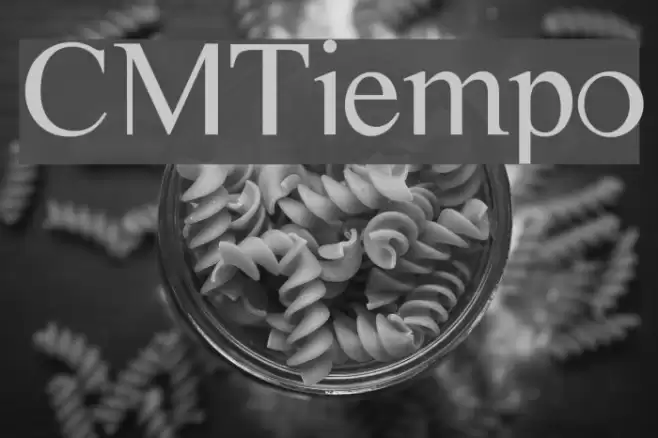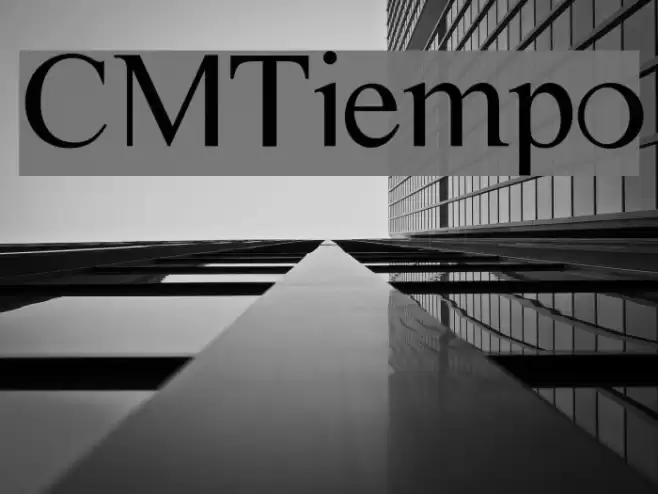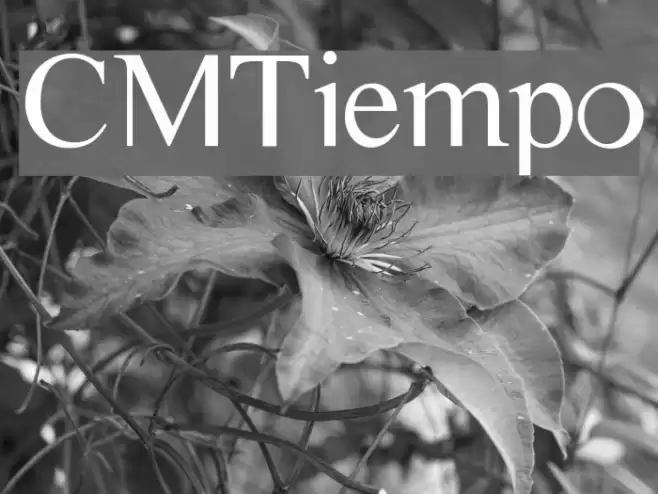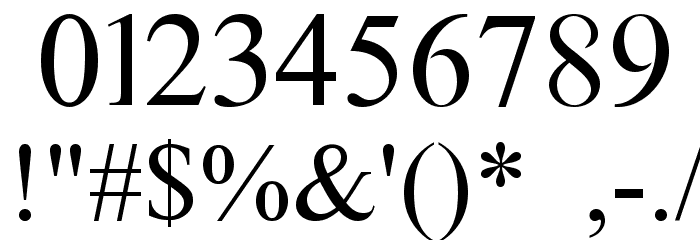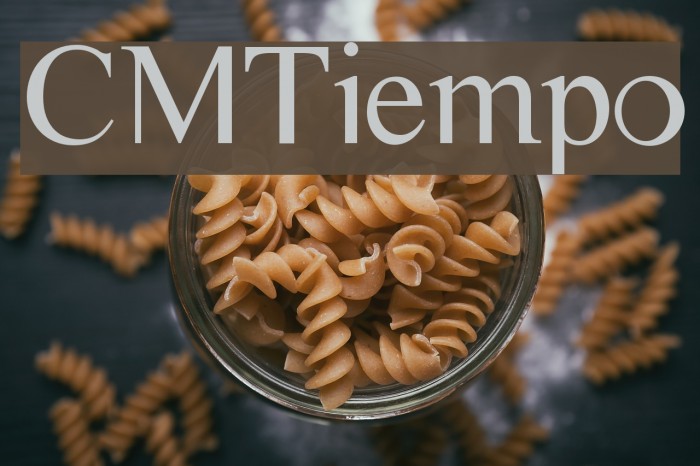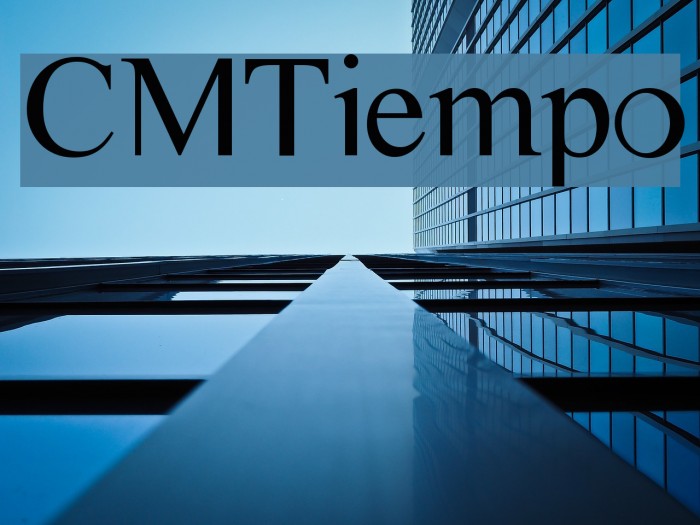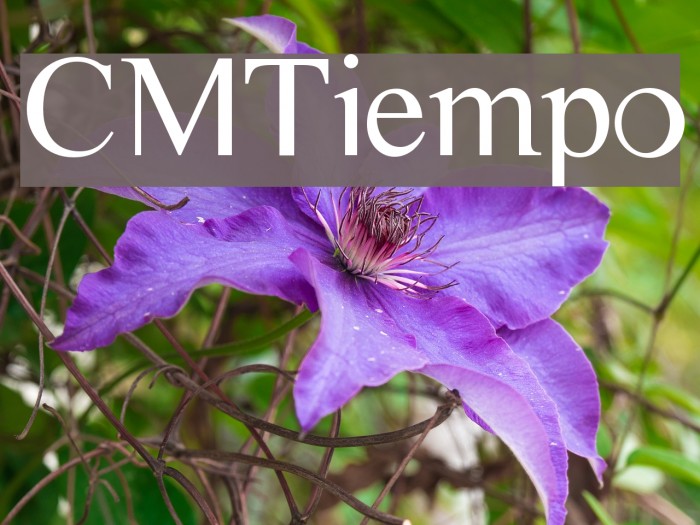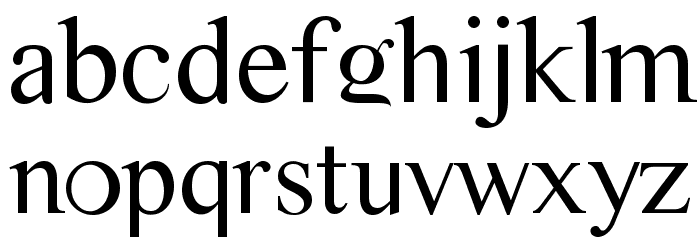
CMTiempo
This font exhibits a classic serif style with elegant and refined strokes. The uppercase letters are bold and commanding, while the lowercase letters maintain a graceful and fluid appearance. The numerals are clear and distinct, making them easily readable. Special characters are designed with a sophisticated touch, adding to the overall elegance of the typeface. The font's design is suitable for conveying a sense of tradition and reliability, with a modern twist that keeps it relevant for contemporary use.
A classic serif font with elegant strokes and a modern touch.
- Proposed Projects: Ideal for editorial design, book covers, formal invitations, and branding materials that require a touch of elegance and tradition.
- Category: Serif
- Contrast: High
- Overall Style: Classic